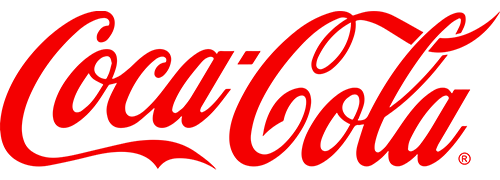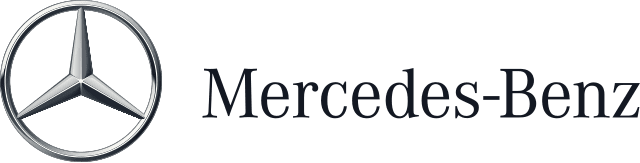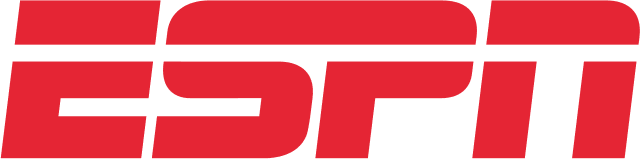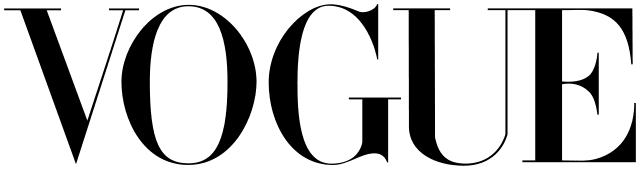
Top Logo Fonts: Ideas From Iconic Brands & Logos
When you see a logo, what’s the first thing that happens? Without even realizing it, you start forming opinions about the brand. Even if it’s a name you’ve never heard before, the logo design communicates key details about the brand and its identity. Hints about the brand’s personality and values. That’s the magic of a brand logo. And at the core of this? Logo fonts.
As you know, fonts play a pivotal role in logo design. For example, in a wordmark logo, the font is the design, carrying the brand’s essence entirely. In combination logos, the font sets the mood, acting as the cornerstone tying everything together for a harmonious design. In short, no matter the type of logo, choosing the right logo fonts is non-negotiable.
With so much riding on this one design element, it’s no wonder choosing the right logo font feels daunting. After all, it isn’t just about aesthetics – it’s about selecting something that encapsulates what your brand is all about. But don’t worry, we’re here to help. This blog will take some of the pressure off by exploring how iconic brands have used logo fonts effectively.
Now, a quick heads-up: most of these brands rely on custom-designed fonts that aren’t directly accessible. However, we cannot deny that their choices are packed with logo design lessons. The psychology behind their font decisions, and the way they use typography to connect with their audience – these are insights you can apply to your own logo.
So, let’s dive in and decode the fascinating world of logo fonts.
7 Popular Logos + Lessons in Choosing Logo Fonts
Now, logo fonts. So, what are the fonts used in popular logos, and what typography tips can we take away from them? Let’s go:
1. Coca-Cola
In terms of brand awareness in the soft drinks brand segment, Coca-Cola tops the chart with about 95% of consumers in the U.S. recognizing the brand and its logo. This recognition has been possible due to the timeless design of the Coca-Cola logo and the iconic font it uses.
Frank Mason Robinson designed the Coca-Cola logo with a font based on the Spencerian Script in 1886 and the swirls and final shape of the logo were added a few years later.
On the whole, the choice of a script font here was owing to the popularity of this style back when the logo was designed. And the idea was to make Coca-Cola a friendly name and position the brand in a wide market of diverse audience demographics. Therefore, going with a well-known typography trend made perfect sense.
However, the real impact of the brand’s logo comes from their consistent use of the logo and their signature red brand color. Therefore, to date this font stands as a testament to the brand’s heritage with its nostalgic aesthetic.
So, what tips can you take away from the Coca-Cola logo with respect to choosing logo fonts?
- Script fonts add a touch of personalization. Therefore, they work well for consumer brands looking to maintain a human touch.
- The fluid nature of the font here also aligns with the feelings of joy and celebration that the brand associates with.
- Even with the swirls, the text in the Coca-Cola logo is easy to read. This emphasizes the need to choose legible fonts.
What other script fonts capture the same joyful vibe as the Spencerian Script version in the Coca-Cola logo? Pacifico, Sacramento, Great Vibes, Edwardian Scrip and Allura to name a few!
2. Mercedes-Benz
The next example we have exemplifies the use of logo fonts in the serif category. The sense of sophistication conveyed by the Mercedes-Benz logo needs no introduction. And this elegance comes mainly from the sleek serif font used.
The design uses a custom typeface similar to the Corporate A Light font. The font here makes the logo and the brand look authoritative and modern as well. In fact, this design is proof that not all serif logo fonts give the design a traditional or vintage look.
The brand consistently uses the primary serif brand font combined with a complementary sans-serif one in their ads and social media designs alike. Here’s an ad that demonstrates the use of the classic combination of serif + sans-serif font in design. With the former used to draw attention and the latter to enhance readability.
The regular or light versions in the font families like Garamond, Playfair Display, Noto Serif, Avril Serif are a few options that work similar to the Mercedes-Benz logo font. These are both modern and elegant along with the added benefit of easy readability.
KIMP Tip: The Mercedes-Benz logo is a combination logo which uses both a logomark and logotype. In this case, the elegance of the serif font resonates well with the simplicity of the 3-pointed star logomark. Similarly, the logo fonts you choose should not just look aesthetically appealing but also complement the overall design.
3. ESPN
The ESPN logo uses a distinct sans-serif font. The brand name’s initials were abbreviated as ESPN (Entertainment and Sports Programming Network) to make the brand name more memorable and easier to use. Therefore a lettermark logo makes perfect sense.
Considering the sports segment that the brand belongs to, the dynamic font and the vibrant red color go perfectly well.
Hence the ESPN logo exemplifies the option of choosing logo fonts that align with your brand’s unique personality.
If you are looking for fonts similar to the bold and energetic custom font of the ESPN logo, then SF Sports Night, ESP, Eurostile Bold and Scottsdale Italic are a few options.
KIMP Tip: Fonts with additional details like the in-line negative space line or the split effect used in the ESPN logo are attention-grabbers. No doubt! However, they are not the best options in terms of legibility. Moreover they can be overwhelming when used a lot. Therefore, when you choose such heavy logo fonts, pair them with a simple and easy font to use in the rest of your marketing designs.
4. Vogue
Serif fonts are some of the most popular choices of logo fonts for brands looking to convey a sense of luxury and class. The Didone style in particular is one of the most effective especially for brands that need to communicate a sense of modernity as well. The Vogue logo is one of the classic examples of the use of Didone serif fonts in logo design.
The Vogue brand has been associated with luxury and boldness. Accordingly, the serif font used in their logo looks powerful and chic. Moreover, for a magazine legibility is a must-have and the logo font in the Vogue logo fulfills that requirement as well. It looks stunning and is easy to read on their magazine covers and digital ads alike.
To conclude from this example – choose logo fonts that make sense for your brand. Because not all fonts are built the same and hence something that works for one brand does not always work for another. For instance, Didone fonts like the one used here work well for brands that wish to carry a high-end vibe. Identify something similar that looks and feels like your brand.
Now, coming to fonts similar to the one used by Vogue and those that carry a similar elegance, try Didot, MADE Canvas, Domani, Goldoni or Troye.
5. The New York Times
Designed by Ed Benguiat, The New York Times logo features a vintage font that feels irreplaceable. Traditional fonts like this one have a special place for themselves in the world of graphic design and not all brands can pull off something like this. The font captures the unwavering authority the brand has established in more than 173 years since inception.
But, yes, keeping up with the digital side of the magazine and newspaper segment, the brand also adopts minimalistic sans-serif fonts and easy-to-read serif fonts on their social media posts and ads.
Now, let’s talk about fonts that look exactly similar to The New York Times logo font and those with a similar vintage charm, useful in branding. Engravers’ Old English BT, Ye Old Shire, Vorname, Holy Union and Beckett are a few options.
6. Disney
Another example of bespoke script font for the logo will be the Disney logo font. The Walt Disney logo uses a font that’s full of life. Did you know that the logo’s font was inspired by Walt Disney’s signature?
The Disney logo also demonstrates how script fonts can infuse a unique personality into your logo design. Hence, if you want your logo to stand out, if you wish to create something truly spectacular then a script font works. Moreover, script fonts add a personal touch which can help capture the essence of your brand.
Again, like the Coca-Cola logo and the ESPN logo, the Disney logo font can also weigh down the readability especially when scaled down. And can appear too heavy or clutter the design when used in excess. Therefore, you need a serif or sans-serif font high on the legibility aspect to communicate your message through your branding and marketing designs.
Waltograph is one font that looks very close to the bespoke Disney font. Other than this, Walt Melody, Madrigal, Crows Ink and Walter are a few more options.
KIMP Tip: Since the font itself has a strong whimsical trait, the logo does not adopt any strong colors. Instead, it goes with a monochromatic design. This makes the Disney logo versatile and easily adaptable. Take cues from this and choose logo colors such that they do not distract customers away from the core message and those that do not clash with your logo fonts.
7. Casio
Casio – a name that makes you think of wristwatches and calculators. A brand that’s all about precision and the charm of analog and core electronics. Accordingly, their logo uses a geometric typeface which is easy on the eyes and has a professional tone as well.
In addition to all this, durability and reliability have been the most important traits associated with the brand. The structured letterforms of geometric forms and the order they infuse into the design accurately represent these traits.
There’s one big hint to take away from the Casio logo – when choosing logo fonts, think of all the descriptors that you think will summarize what your brand is about. What are those words you want your customers to associate with your brand? What are the emotions you wish to evoke? These cues come in handy when choosing the right fonts to use in your logo and as your brand fonts.
Font libraries like Google Fonts allow you to compare and shortlist fonts based on the emotions they evoke.
We all know fonts can be serif or sans-serif… but did you know fonts can also be Happy, Wacky, or Awkward too?
— Google Fonts (@googlefonts) October 16, 2024
Today we're launching a new tag and category filter UI on https://t.co/afFMTLBZSL
Every font family has been evaluated for every tag and given a score from 0 to 100 pic.twitter.com/GtGr2aRtZn
Now, if you are looking for a few geometric fonts that stand for precision and order like the Casio logo font, then consider Eurostile, Orbitron, Jura, or Microgramma.
Design the Perfect Logos With the Right Logo Fonts